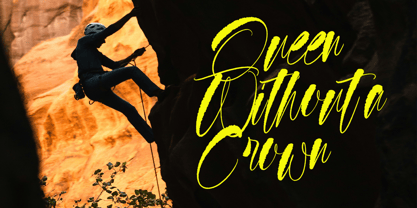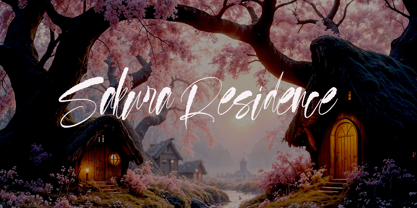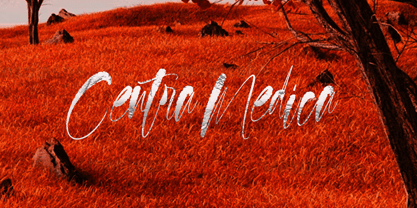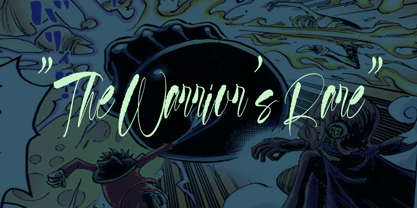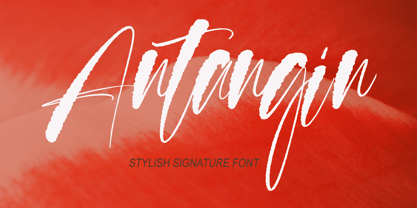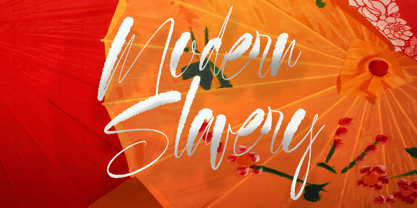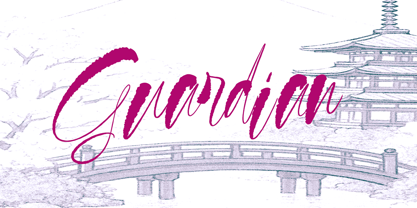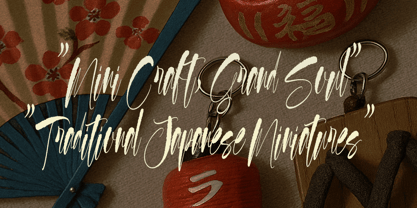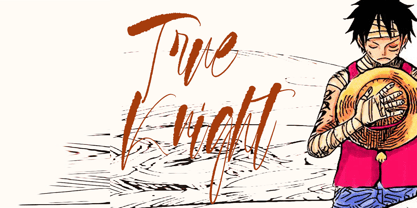
Antangin
Die Schriftfamilie Antangin wurde von khaidir entworfen und von Gatype veröffentlicht. Antangin enthält 1 Stile. Mehr über diese Familie
Antangin is a brush script font that features dynamic, hand-drawn strokes with an expressive and energetic feel. Designed to bring a natural and bold character, Antangin is perfect for creative projects such as posters, product packaging, branding, quotes, and social media content.
This font offers fluid, non-rigid letterforms with bold brush strokes that feel spontaneous yet remain highly legible. Each character conveys a sense of freedom and strength—like a strong gust of wind—perfectly matching its name, Antangin.